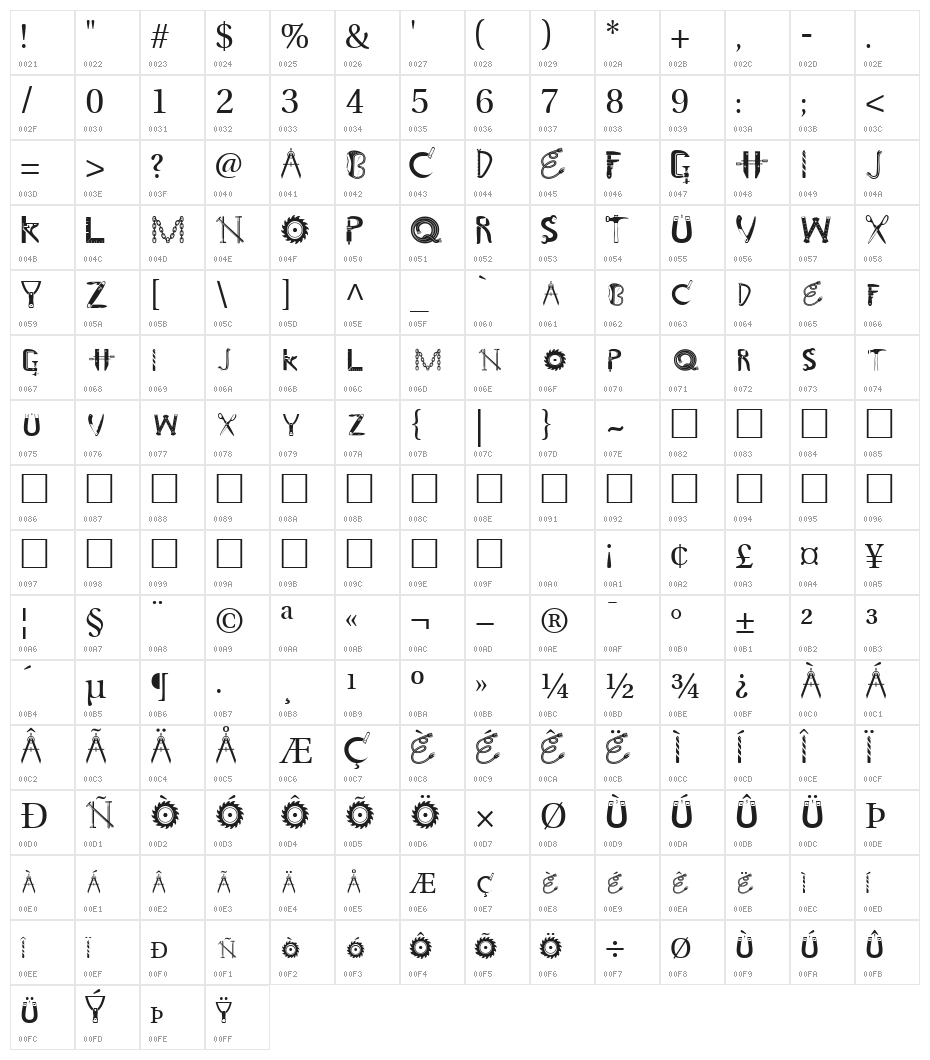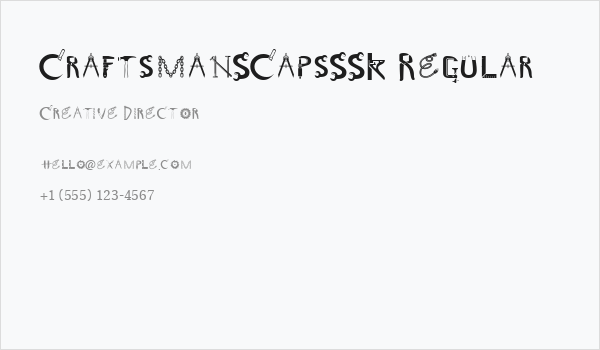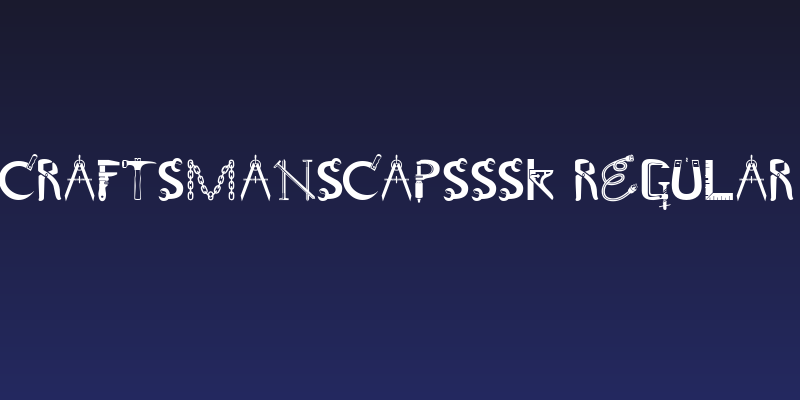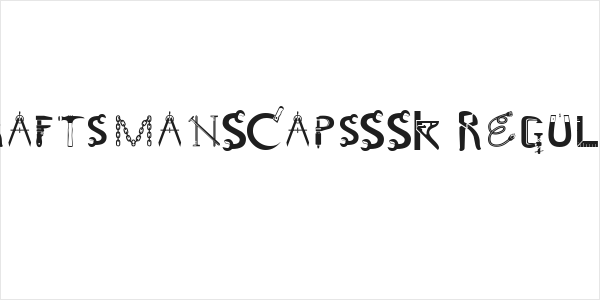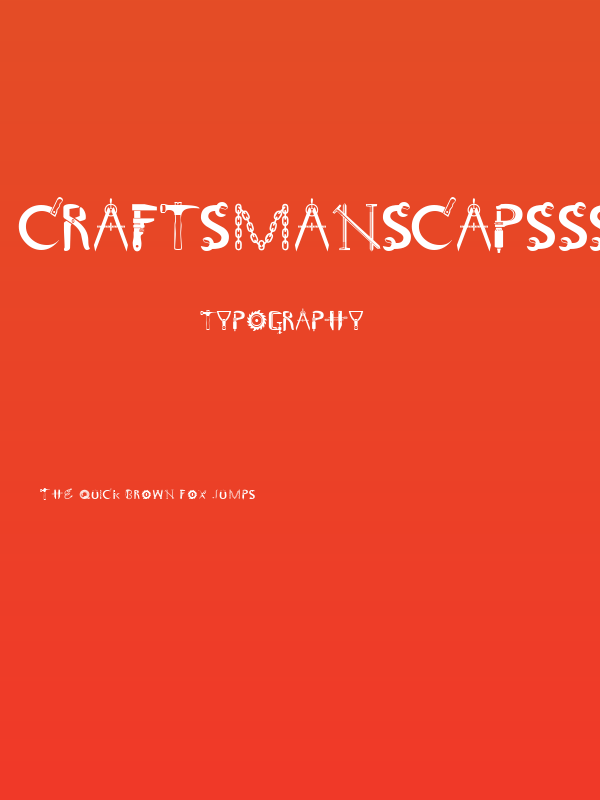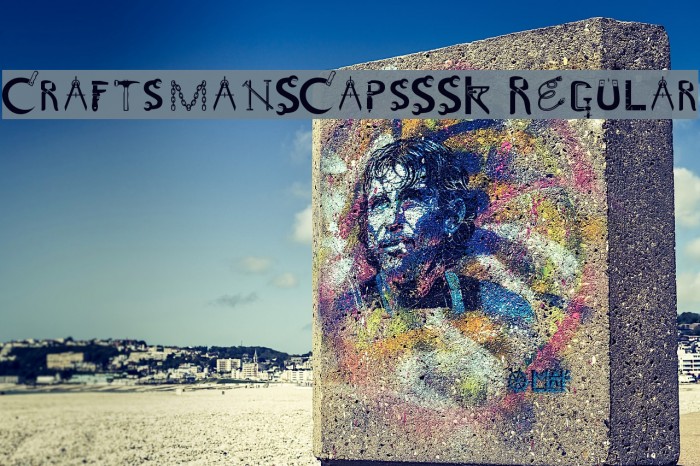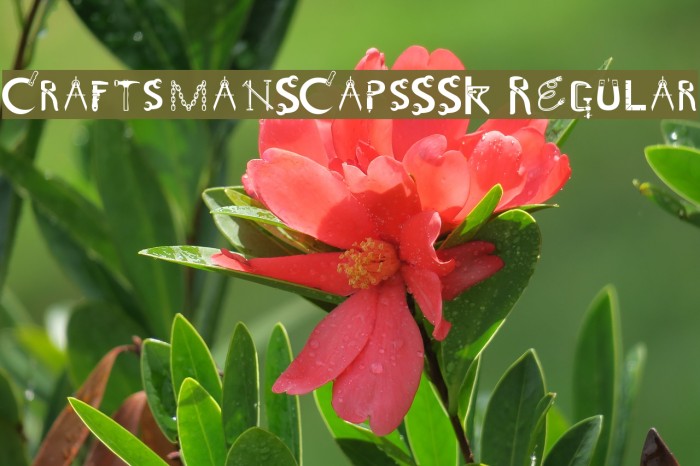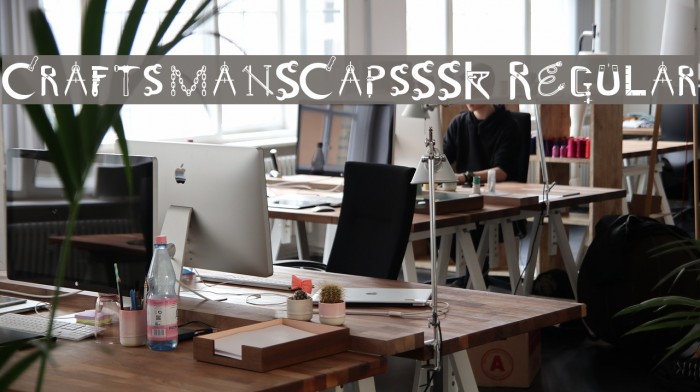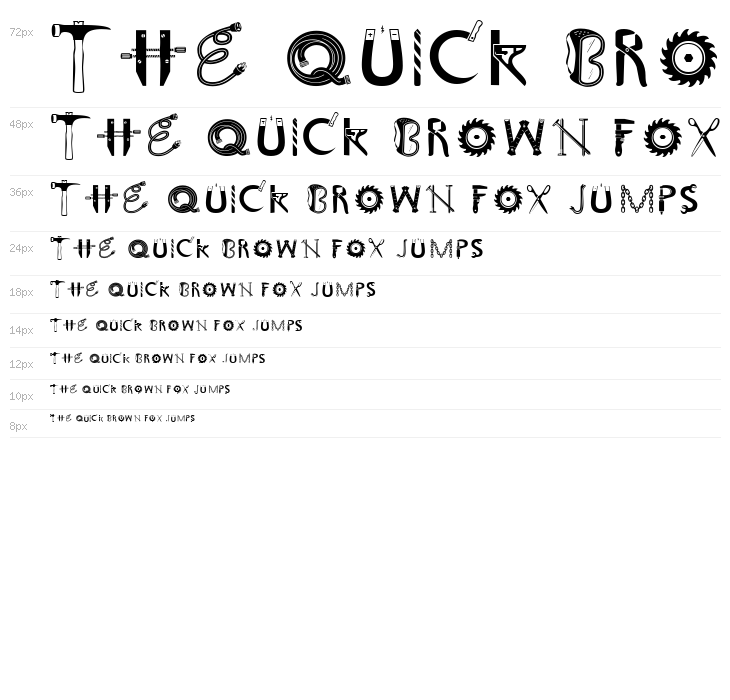
CraftsmanSCapsSSK Regular Font
Fonts by Altsys Metamorphosis
| Projets proposés | Ideal for posters, themed events, branding for tool or hardware stores, and creative design projects. |